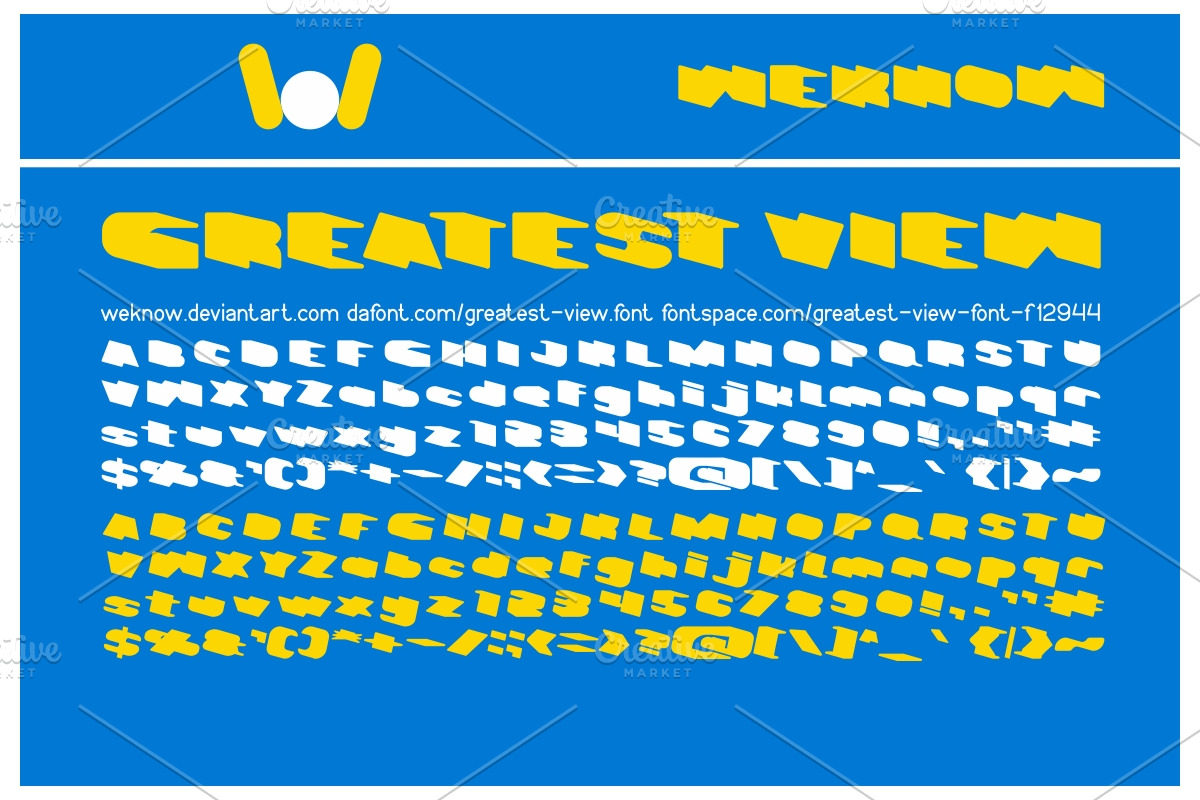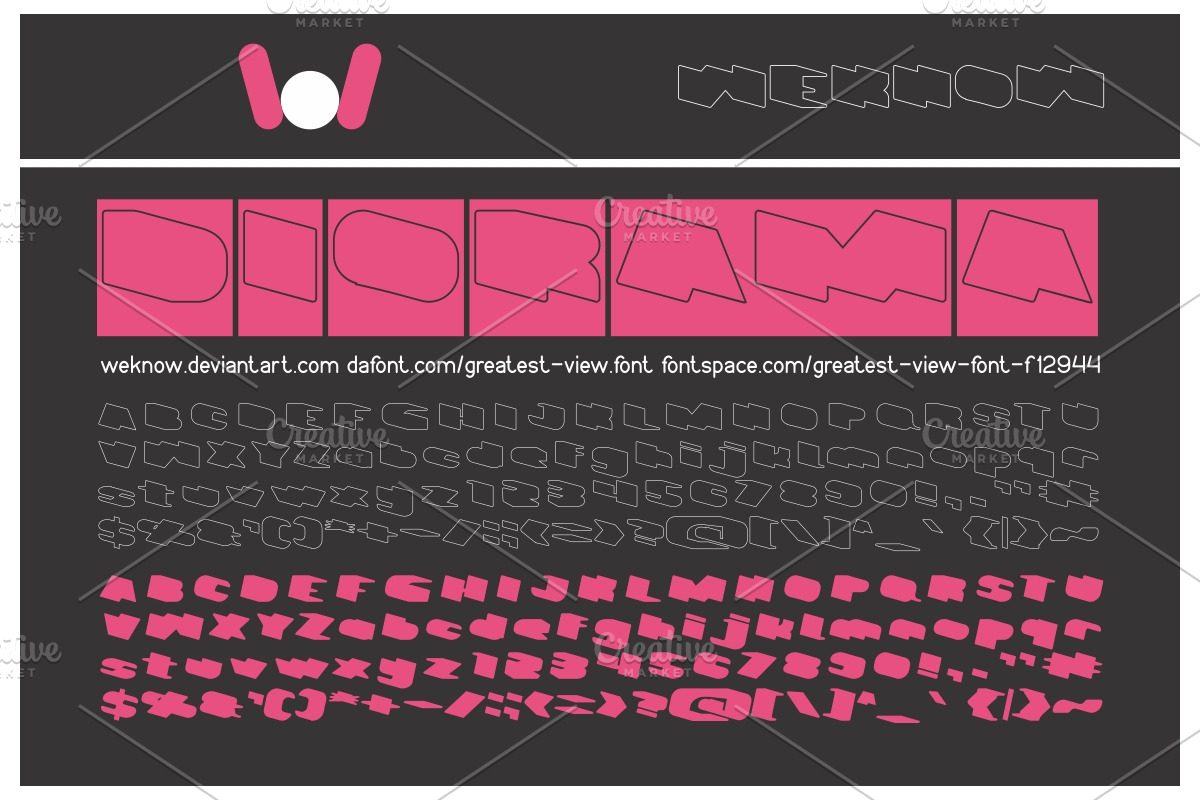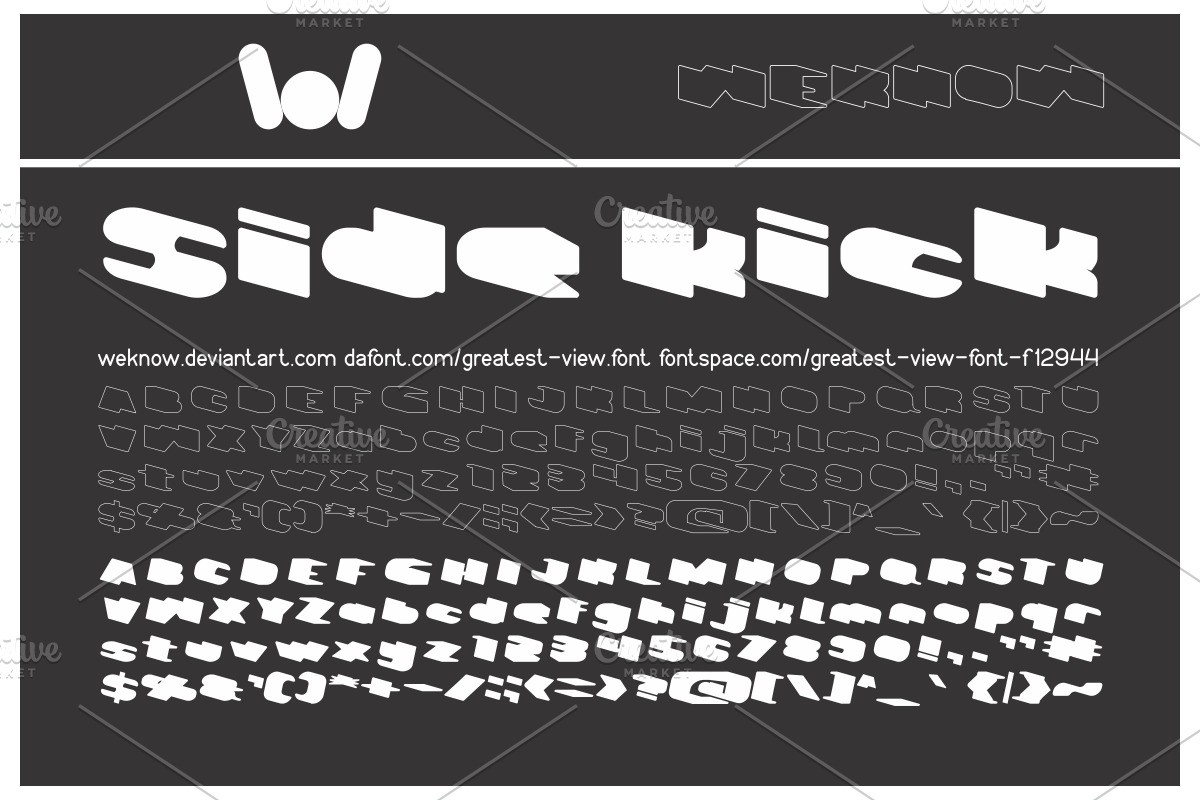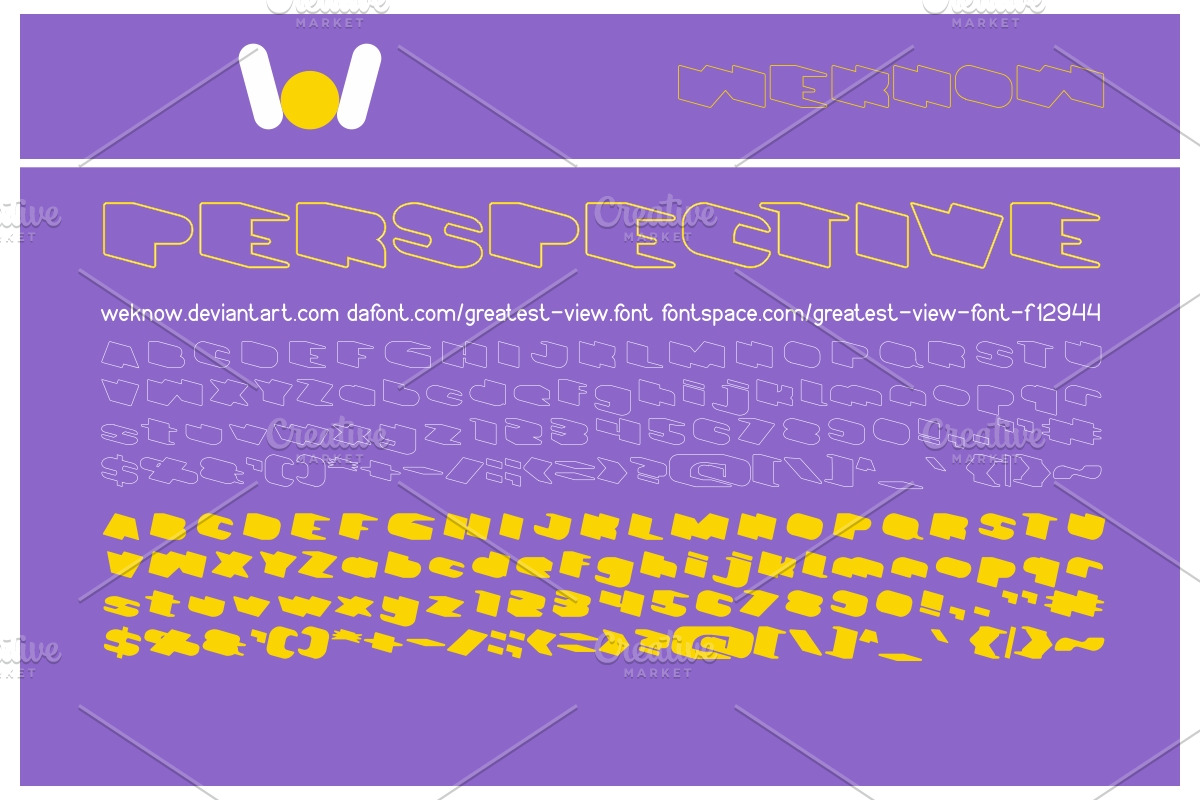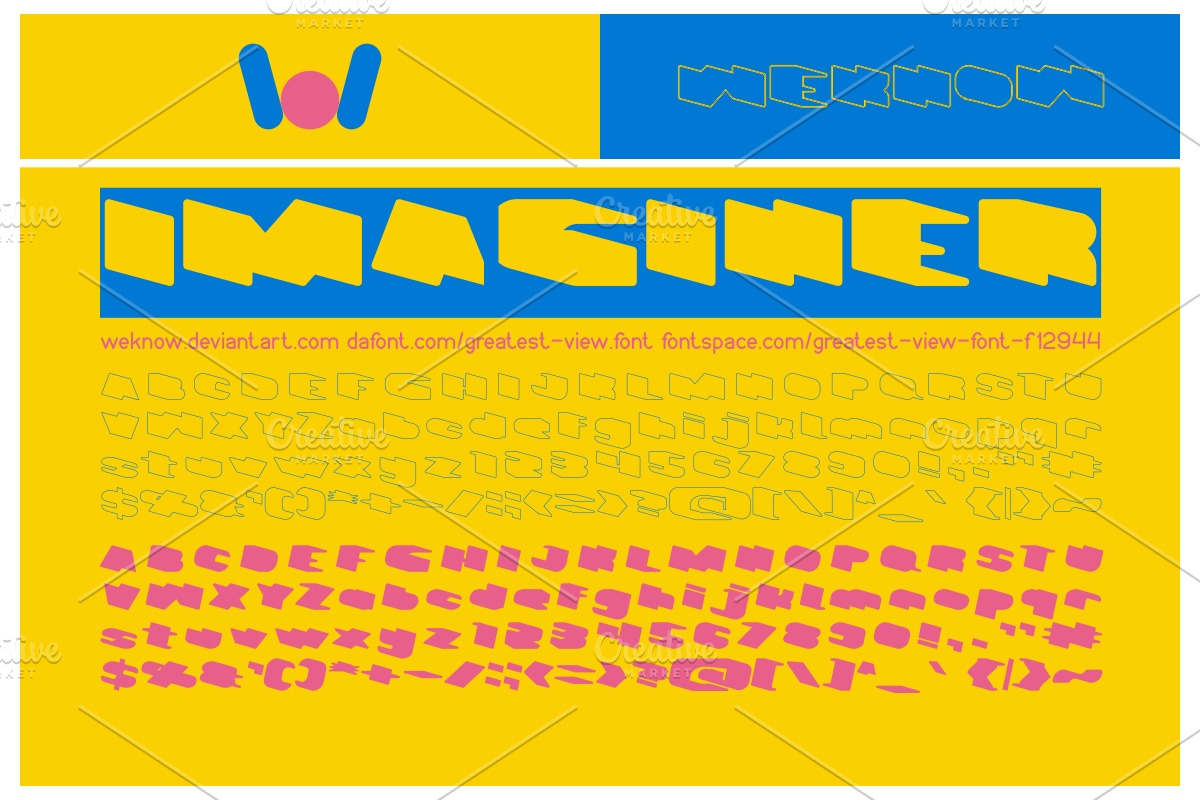
Greatest View font
available style: GREATEST VIEW-light, GREATEST VIEW-Bold, GREATEST VIEW-Bold-Italic, GREATEST VIEW-Hollow, GREATEST VIEW-Hollow-Inverse, GREATEST VIEW-Italic
Why Greatest View font is worth a look
Greatest View font by weknow fits naturally into Branding, posters, packaging, typography.